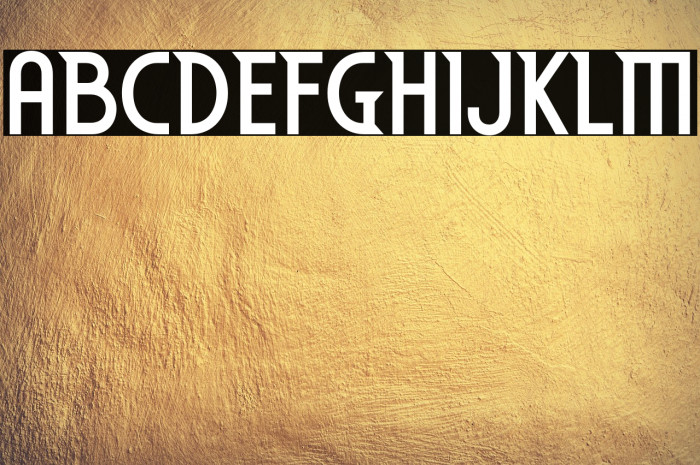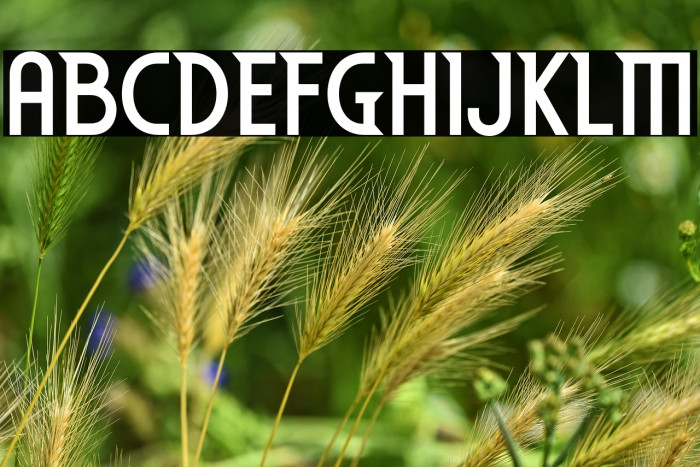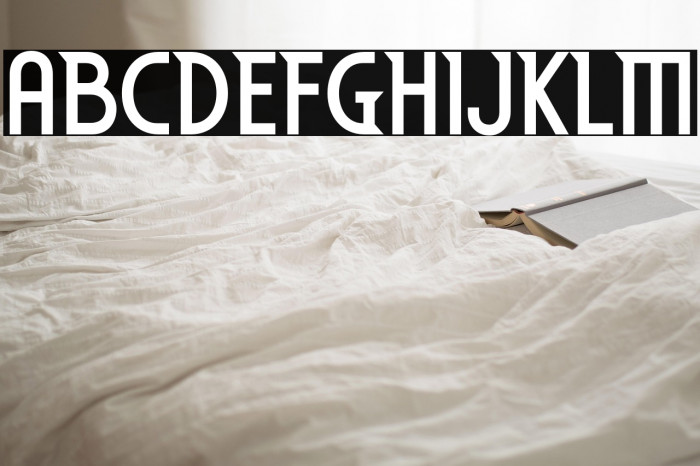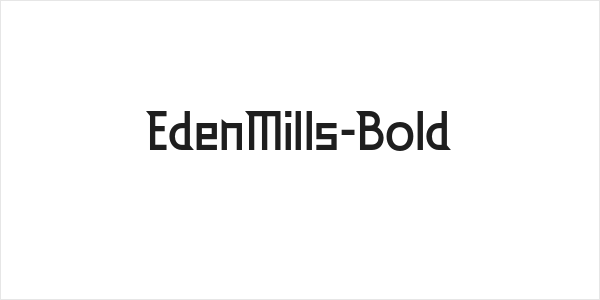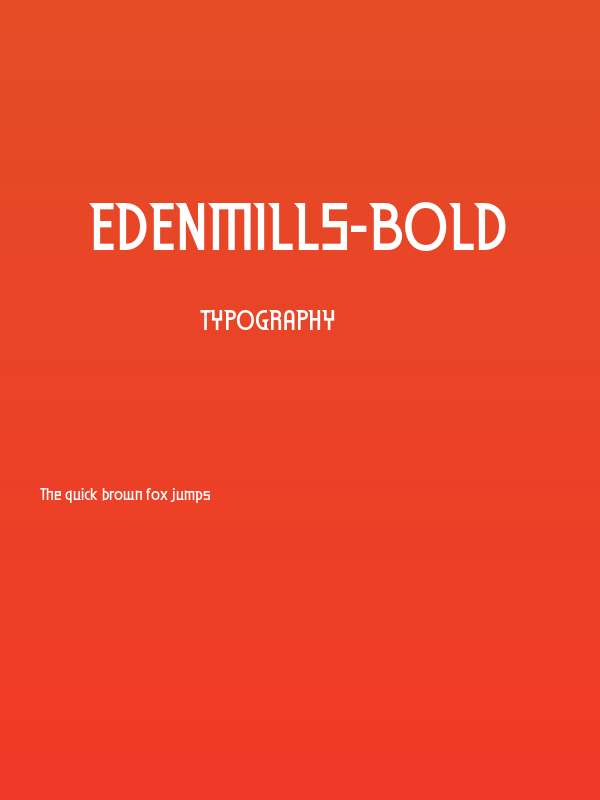
EdenMills-Bold Font
EdenMills-Bold Description
This font features a bold and geometric design, characterized by its sharp angles and clean lines. The uppercase letters are uniform in height, with a modern and futuristic feel. The lowercase letters maintain a consistent style, with unique elements such as the angular 'g' and 'y'. The numerals are equally bold, ensuring clarity and readability. Special characters are designed with the same geometric precision, making them stand out. Overall, this font exudes a strong, confident presence, suitable for impactful design projects.
| Proposed Projects | Ideal for branding, headlines, posters, and any design requiring a strong visual impact. |